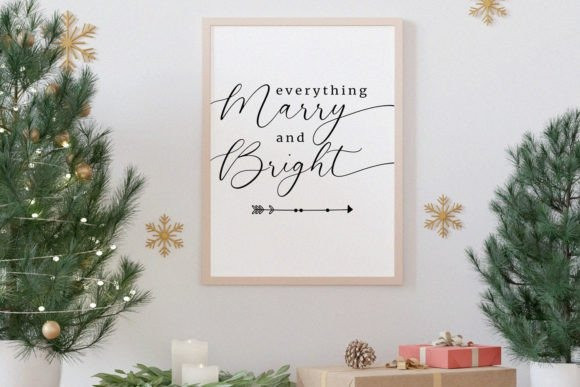
Auretta Font
Auretta Script Font is a Handwritten script font that is modern and fresh, and will bring a warm and inviting feel to your business. Take advantage of the fonts and experience the magic for yourself.
Auretta is perfect for product packaging, branding project, megazine, social media, wedding, or just used to express words above the background.